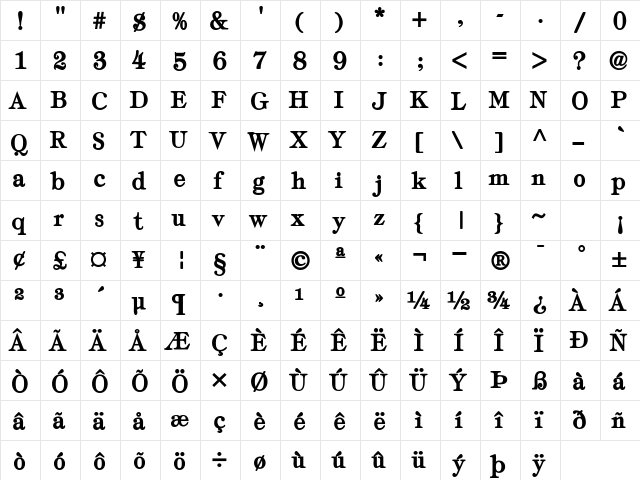
AlbrechtSSK Bold
Design Context for AlbrechtSSK Typeface
AlbrechtSSK offers clean, dependable letterforms without strong stylistic allegiance, making it a practical choice for designers who need flexibility. The heavy weight commands attention and anchors typographic hierarchies.